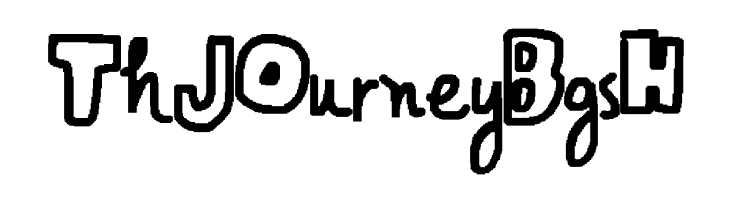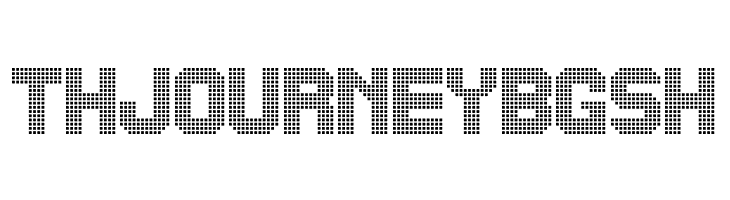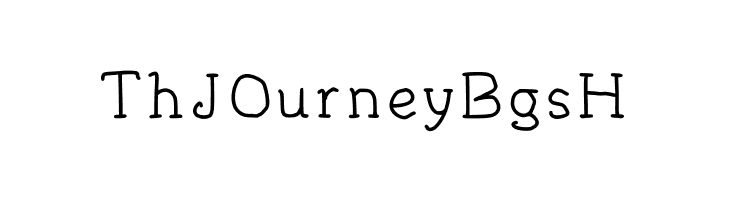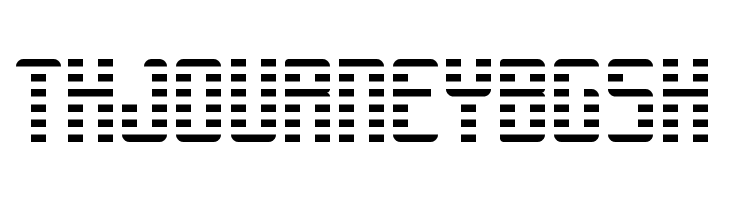
Bimbam Font
A playful, bold font with outlined uppercase and handwritten lowercase letters.
DJB Shape Up Stars Font
A playful font with characters inside bold star shapes, perfect for decorative use.
JD Irregutype Font
A playful, hand-drawn font with irregular strokes and a whimsical style.
RETROSYNTHWAVE Regular Font
Font by André Felipe
A segmented, futuristic font with a retro synthwave aesthetic.
The Led Display St Font
Font by Southype
A dot matrix style font inspired by LED displays, offering a modern and digital look.